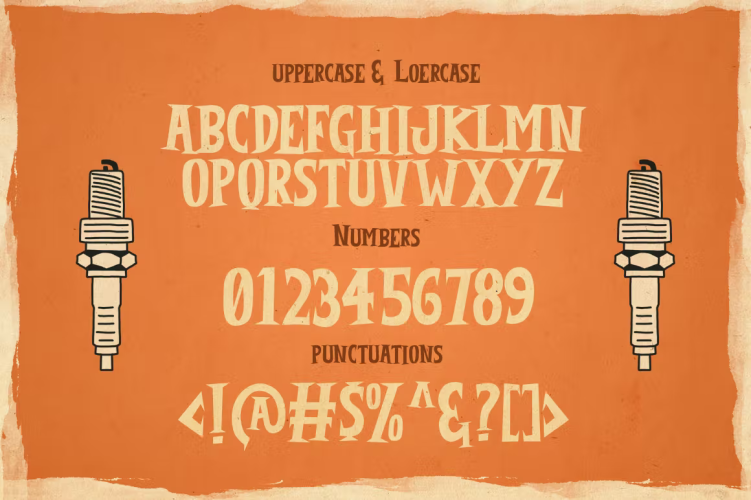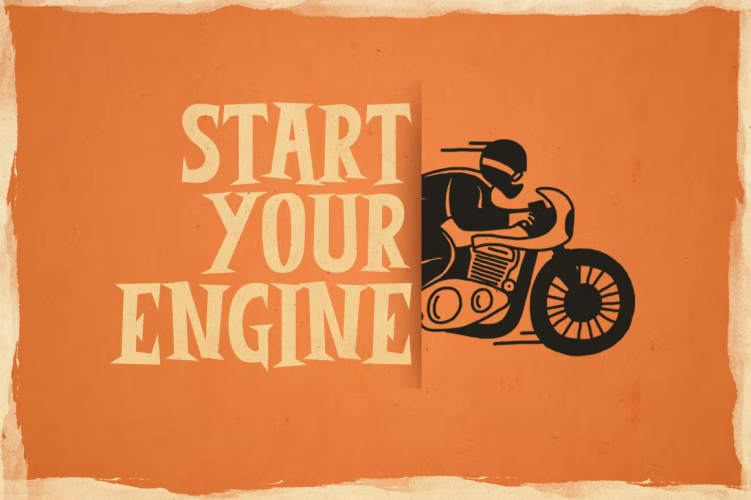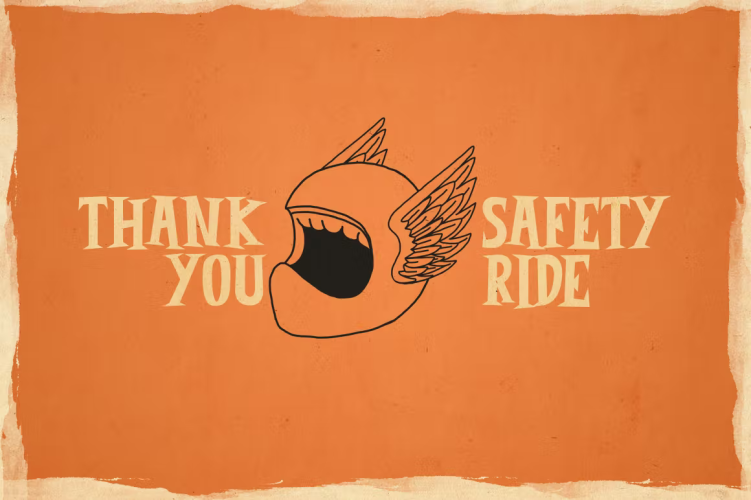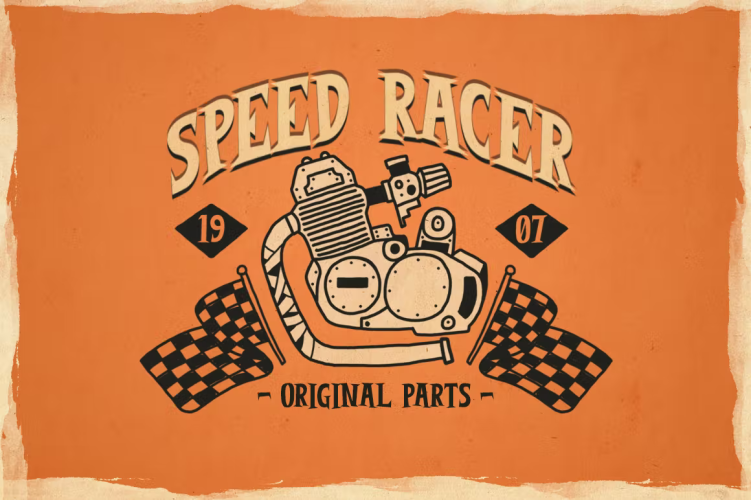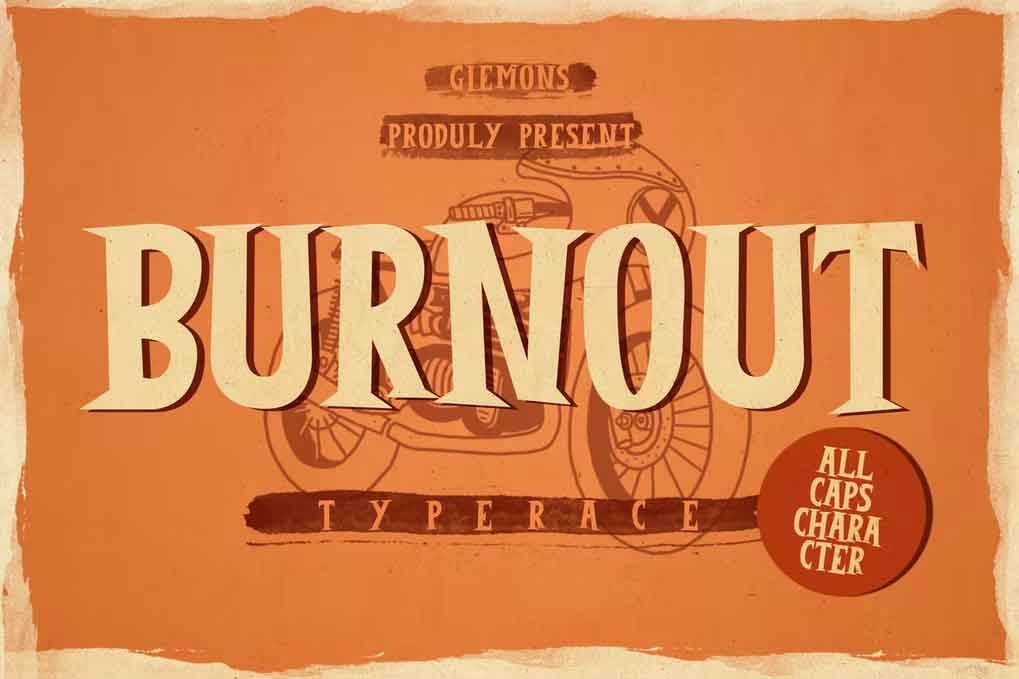
Burnout Font
a BURNOUT Typeface is unique font and also has vintage display font. Can make it easier to convey the message in your design. Use for awesome display, labeling, clothing…
a BURNOUT Typeface is unique font and also has vintage display font. Can make it easier to convey the message in your design. Use for awesome display, labeling, clothing, movie sceen, poster, movie title, gigs, album covers, logos, and much more.
Where Burnout Font works best
Burnout Font is optimized for screen reading, which makes it a solid body or heading font for blogs, e-commerce and SaaS sites.
Clear web-style letterforms improve readability in marketing emails.
Great for developer docs, admin panels and data-heavy interfaces.
What is Burnout Font good for?
Burnout Font is a Web Fonts typeface tagged Branding, Display, Poster, Typeface. It works well for headlines, logos, posters, social media graphics and branding projects that need a distinctive web fonts look.